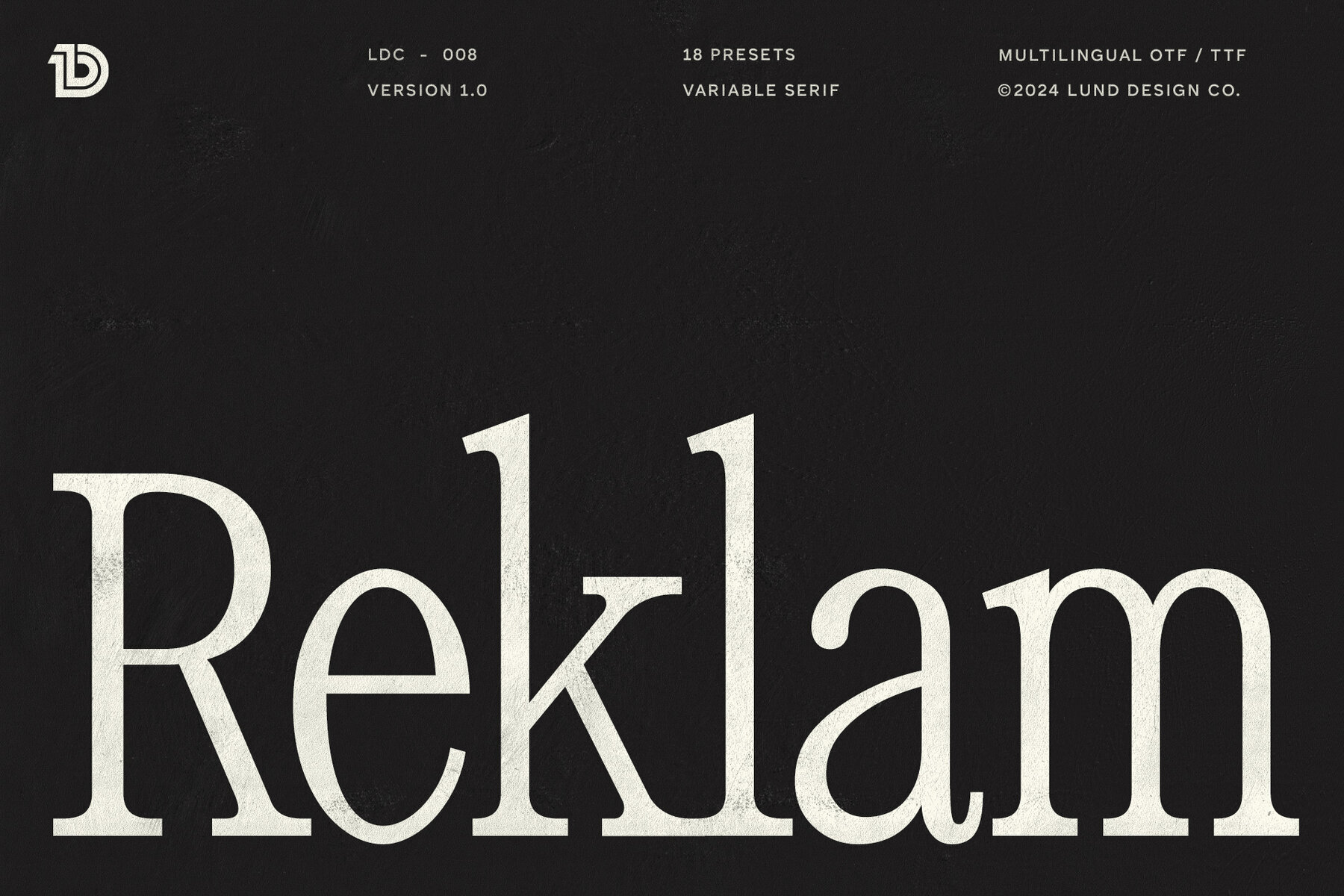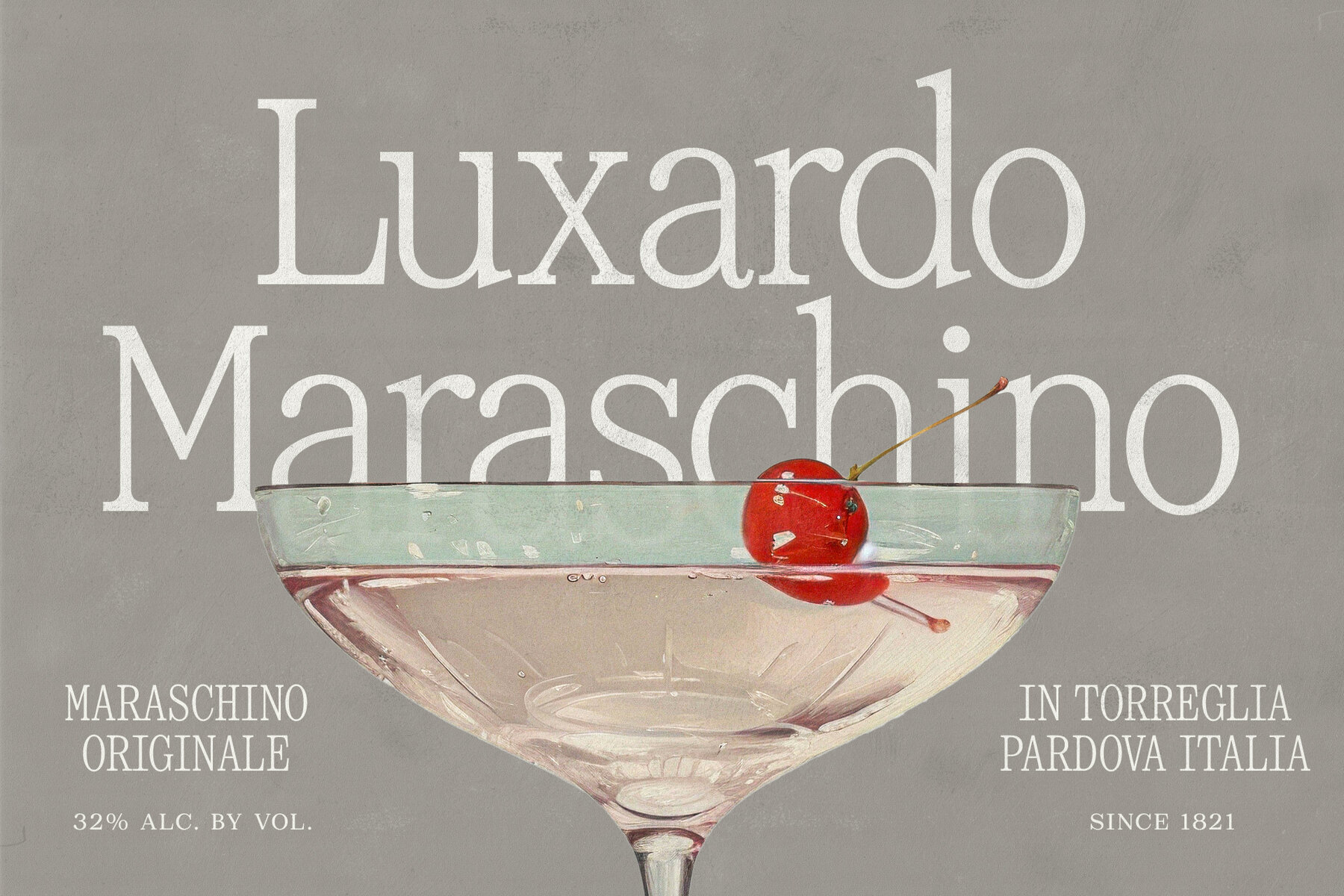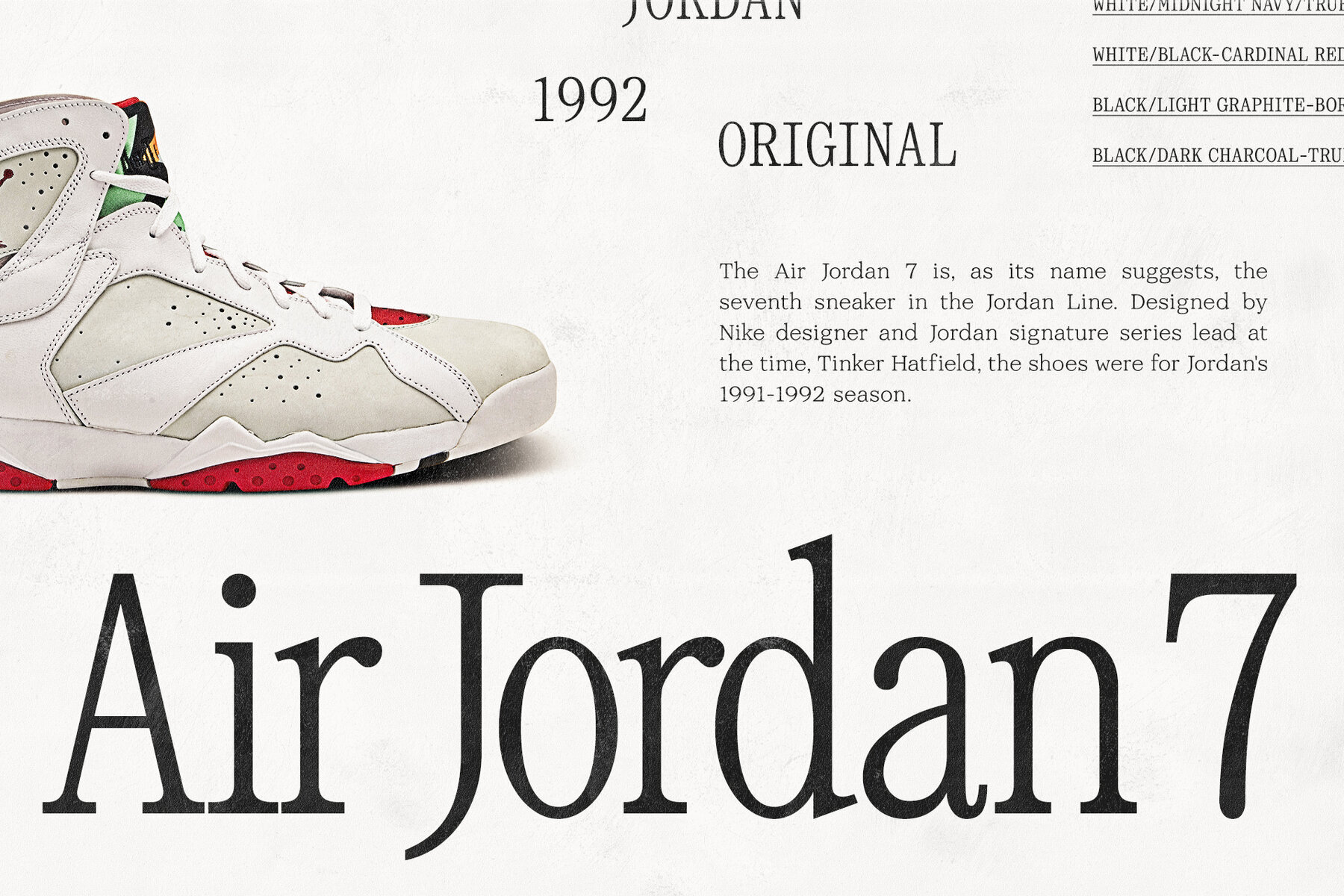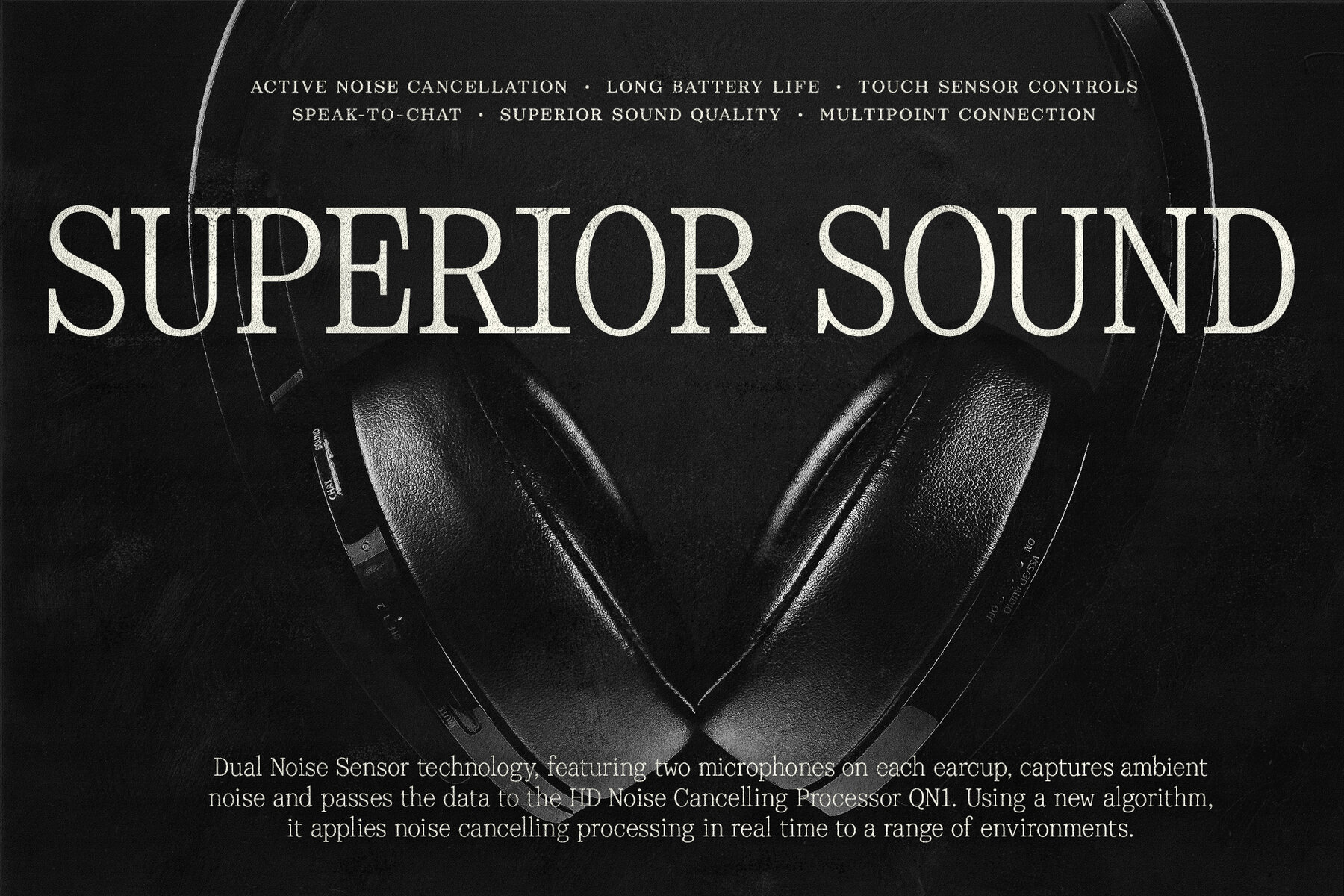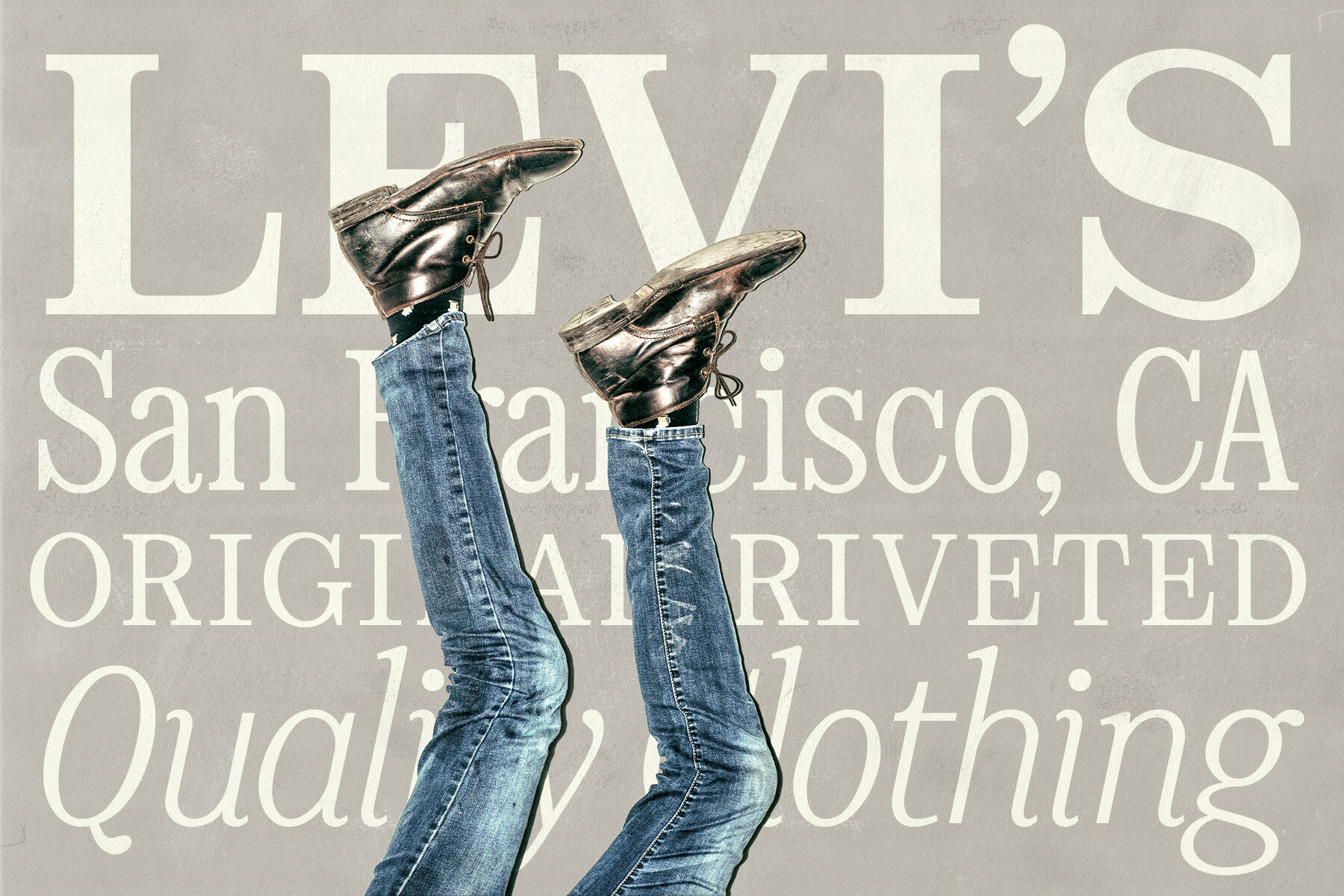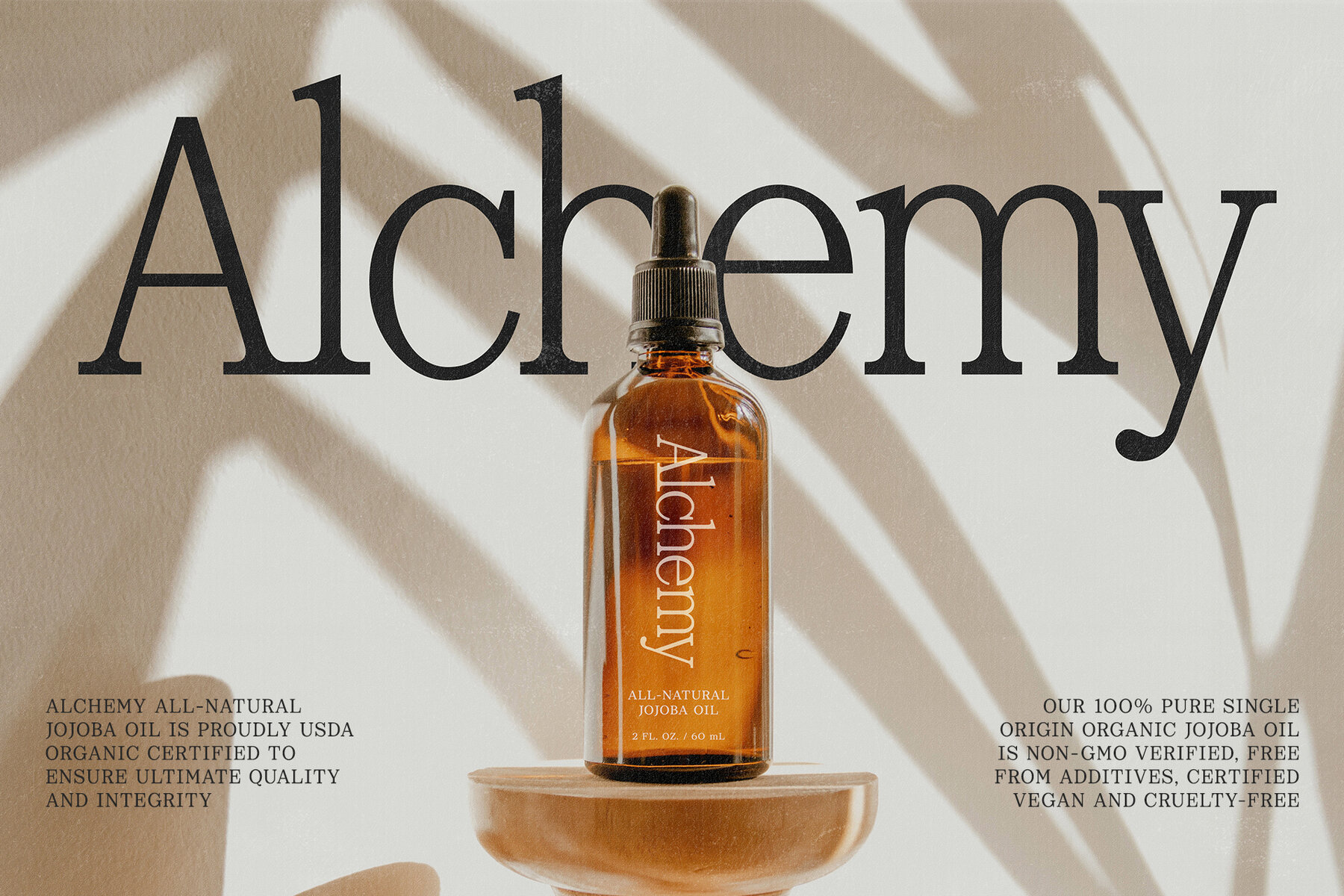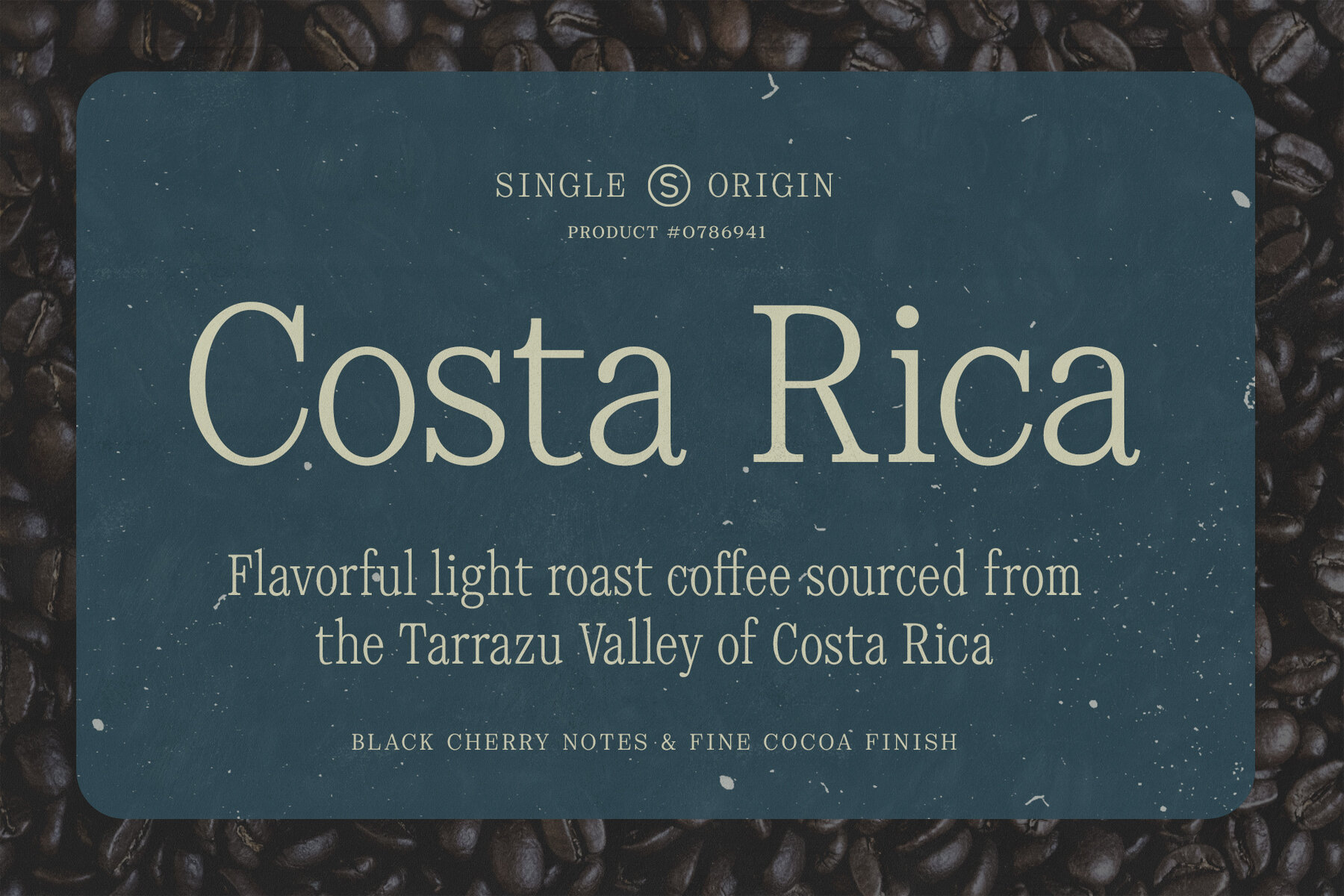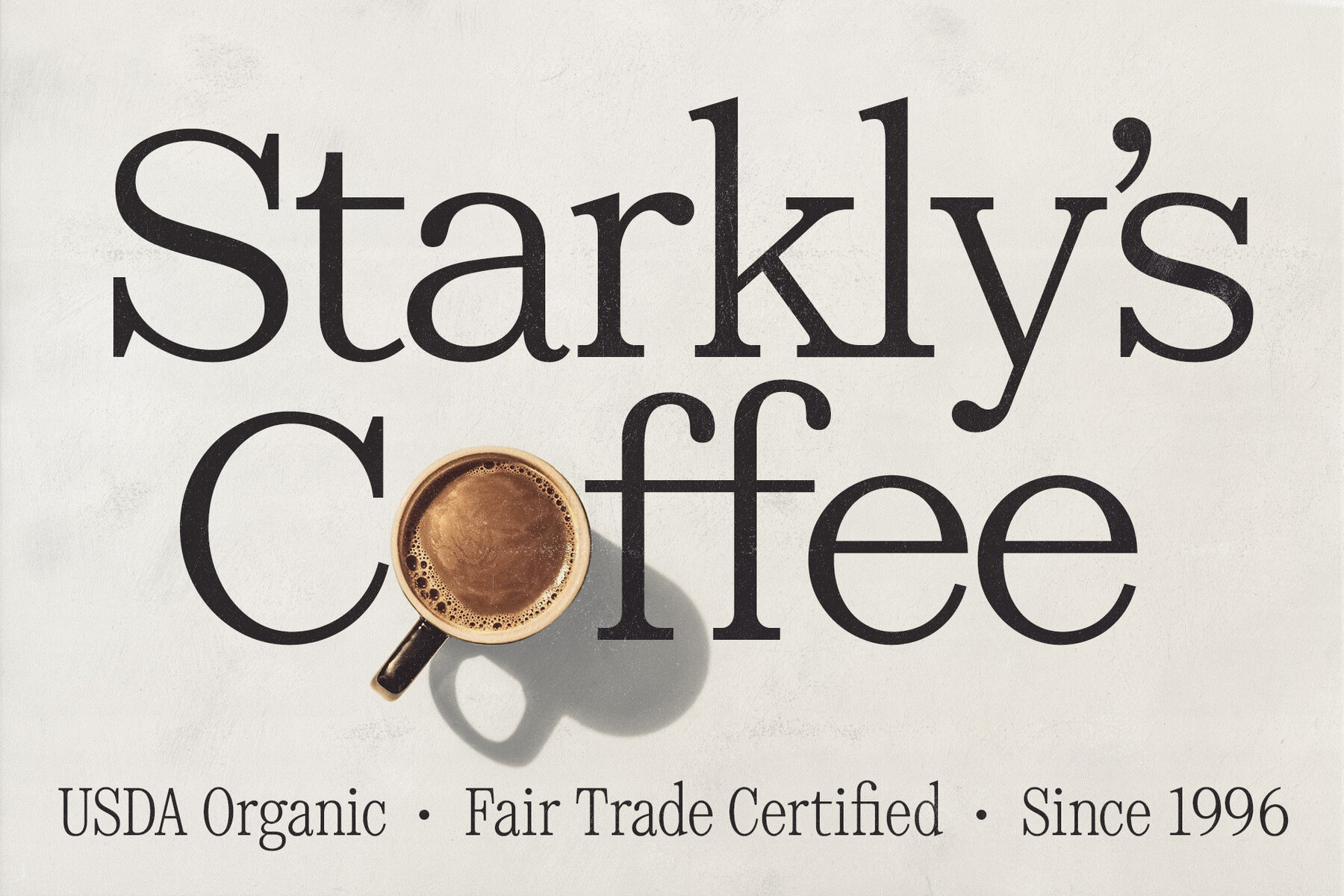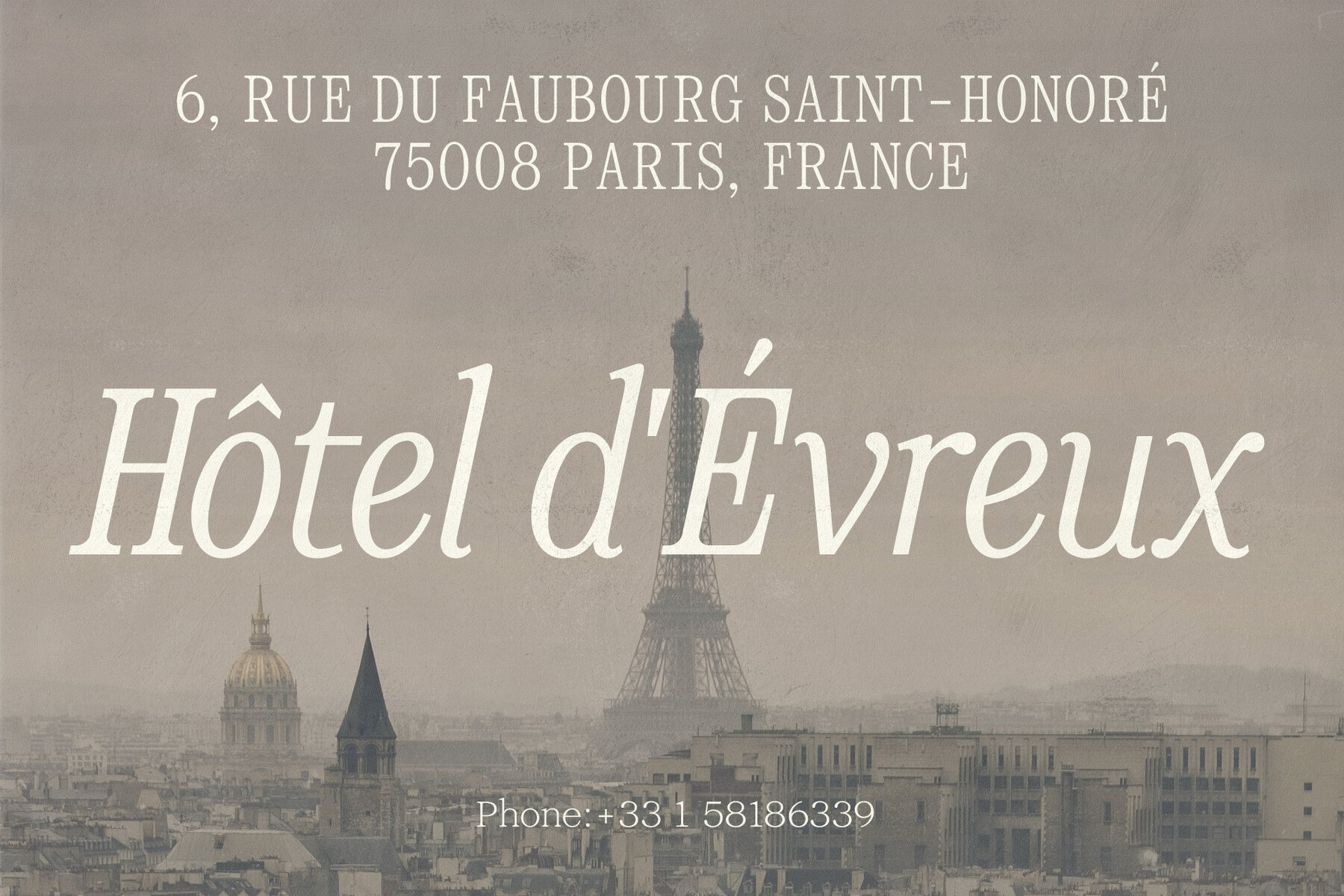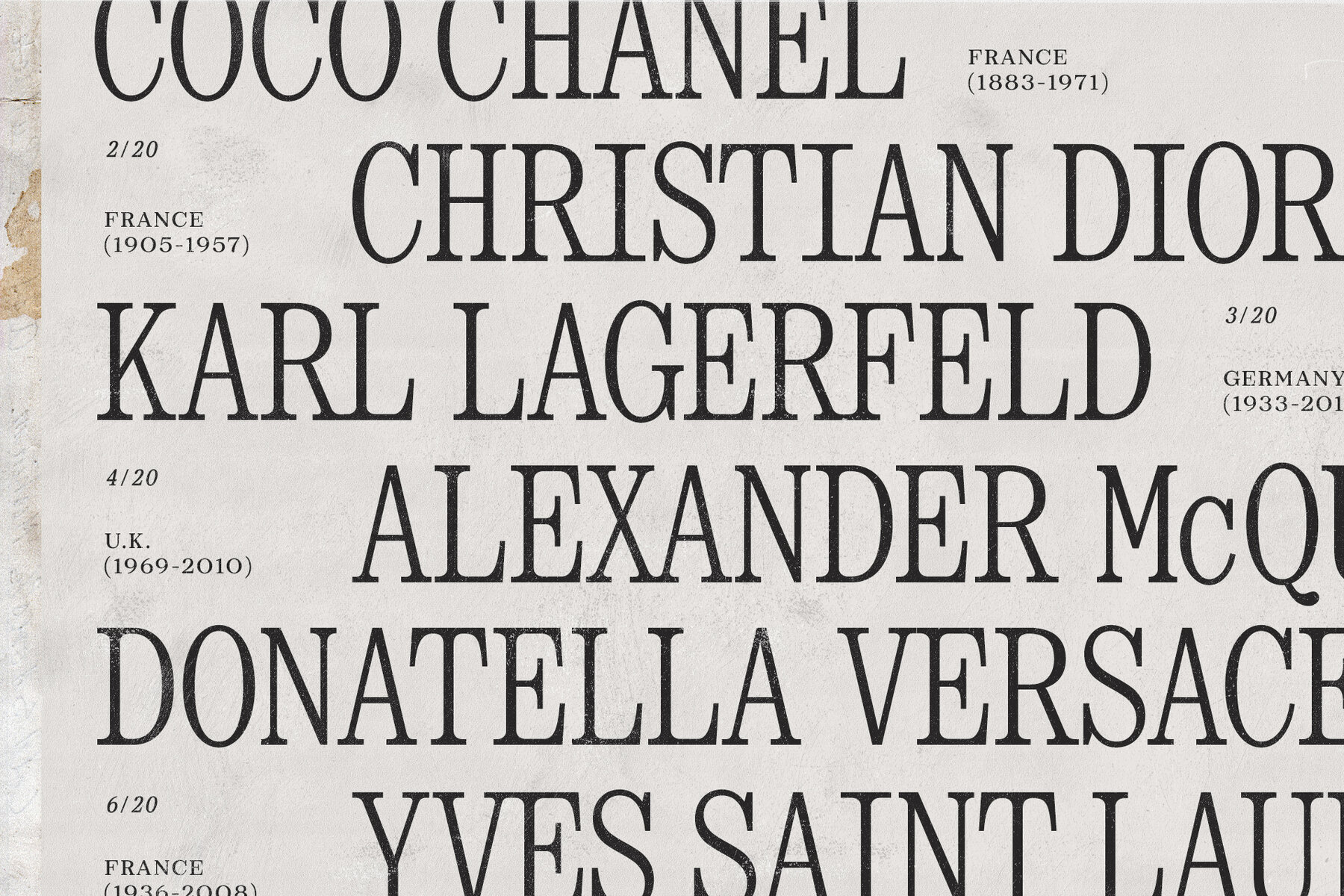
Reklam Font
Reklam is an elegant, retro serif family with variable weights and widths. With its unique letterforms full of 90s retro personality, this sophisticated yet quirky typeface can work well for long-form text, but really stands out at headline sizes. The narrow widths have a nostalgic editorial feel and the wider versions work great for smaller text. This serif includes accents & multilingual characters.